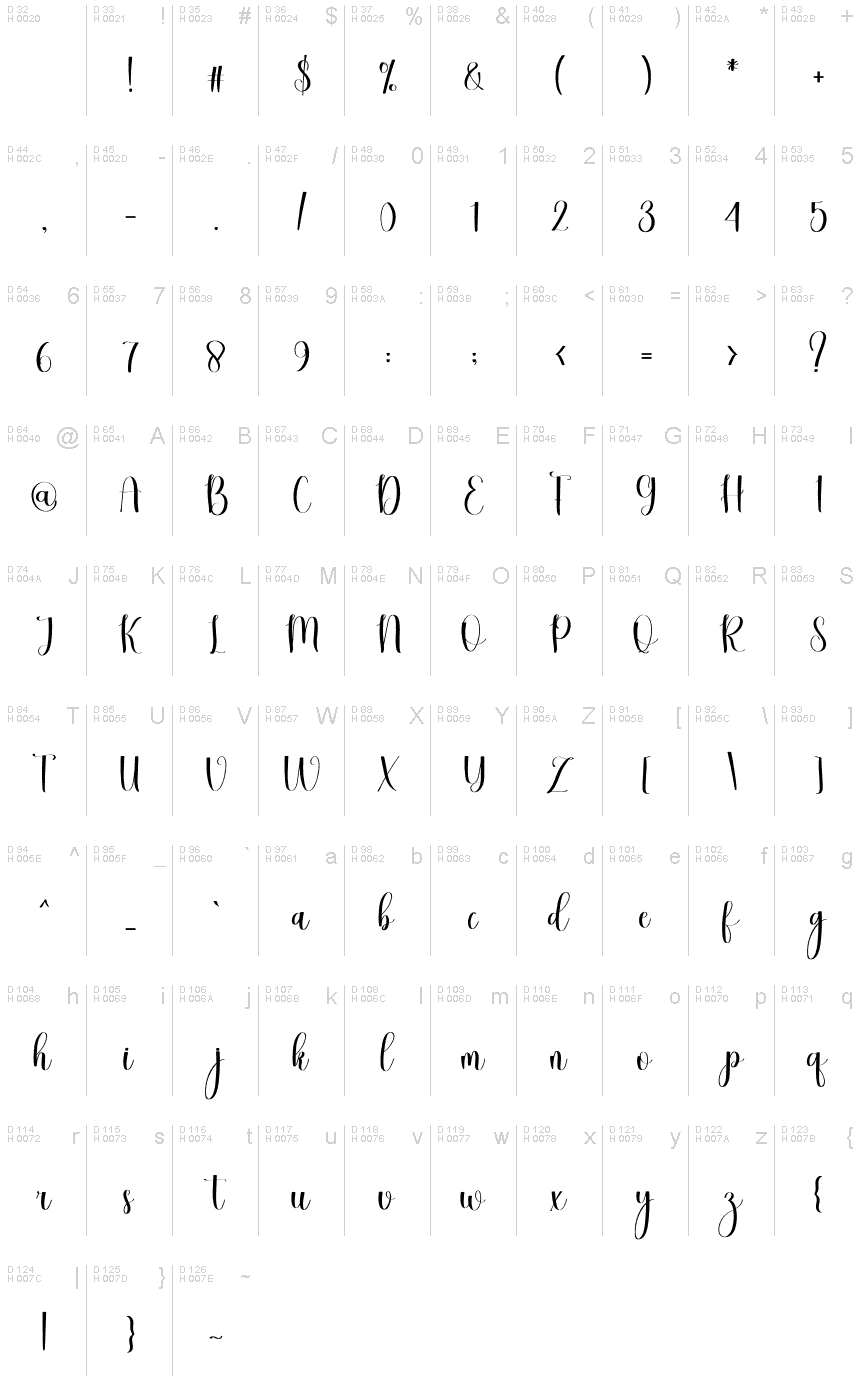
Simple Mandala
Simple Mandala, designed by FreshtypeINK, is a delightful and whimsical font that adds a touch of playfulness to any project. With its cute handwritten style, this semi-light typeface brings a sense of warmth and friendliness to your designs.
The semi-condensed width ensures that your text fits snugly within limited spaces without sacrificing legibility. Perfect for children's books, greeting cards, and social media graphics, Simple Mandala will captivate readers with its charming appeal.
Let this font infuse your projects with a dash of cheerfulness and creativity.